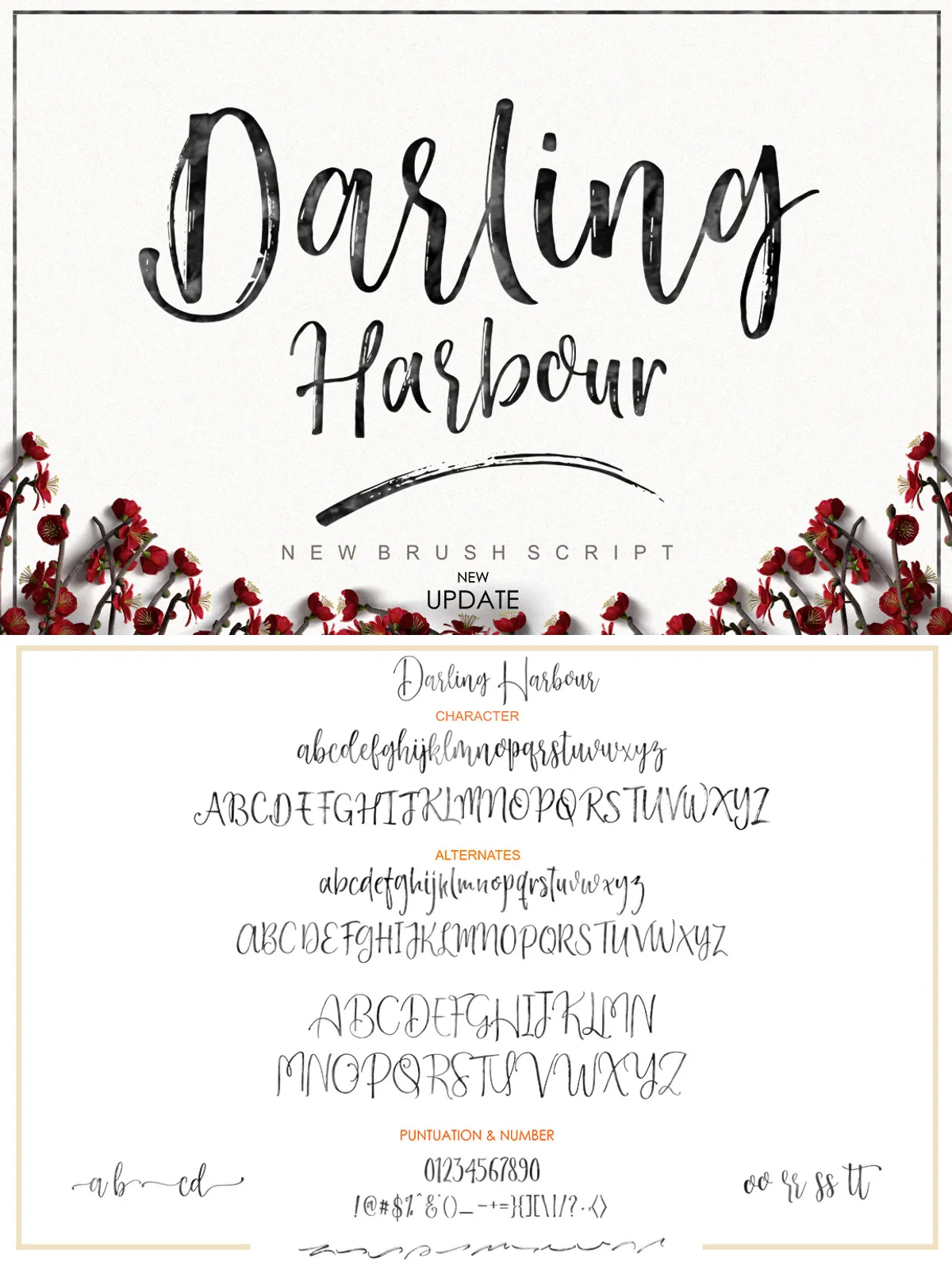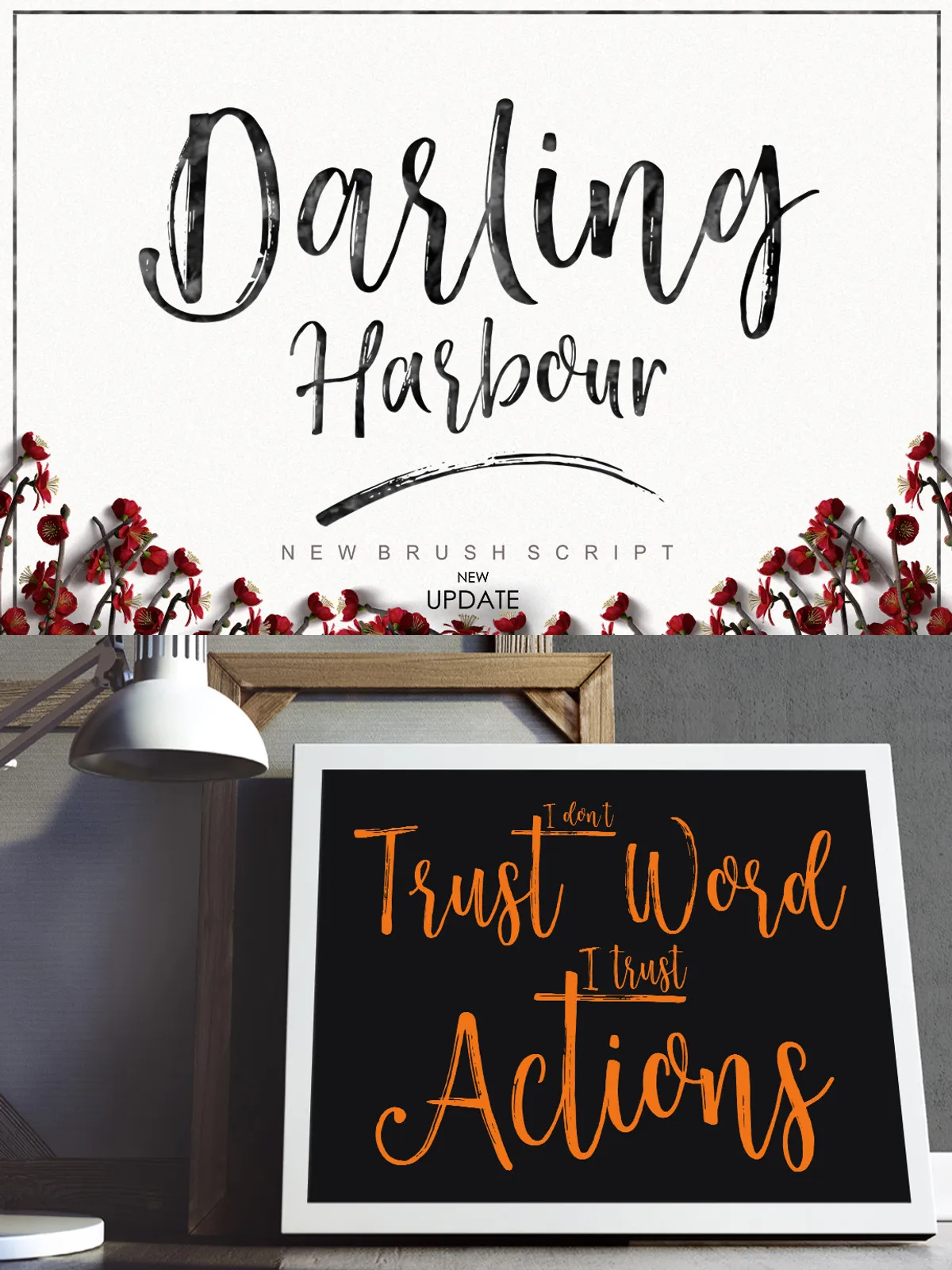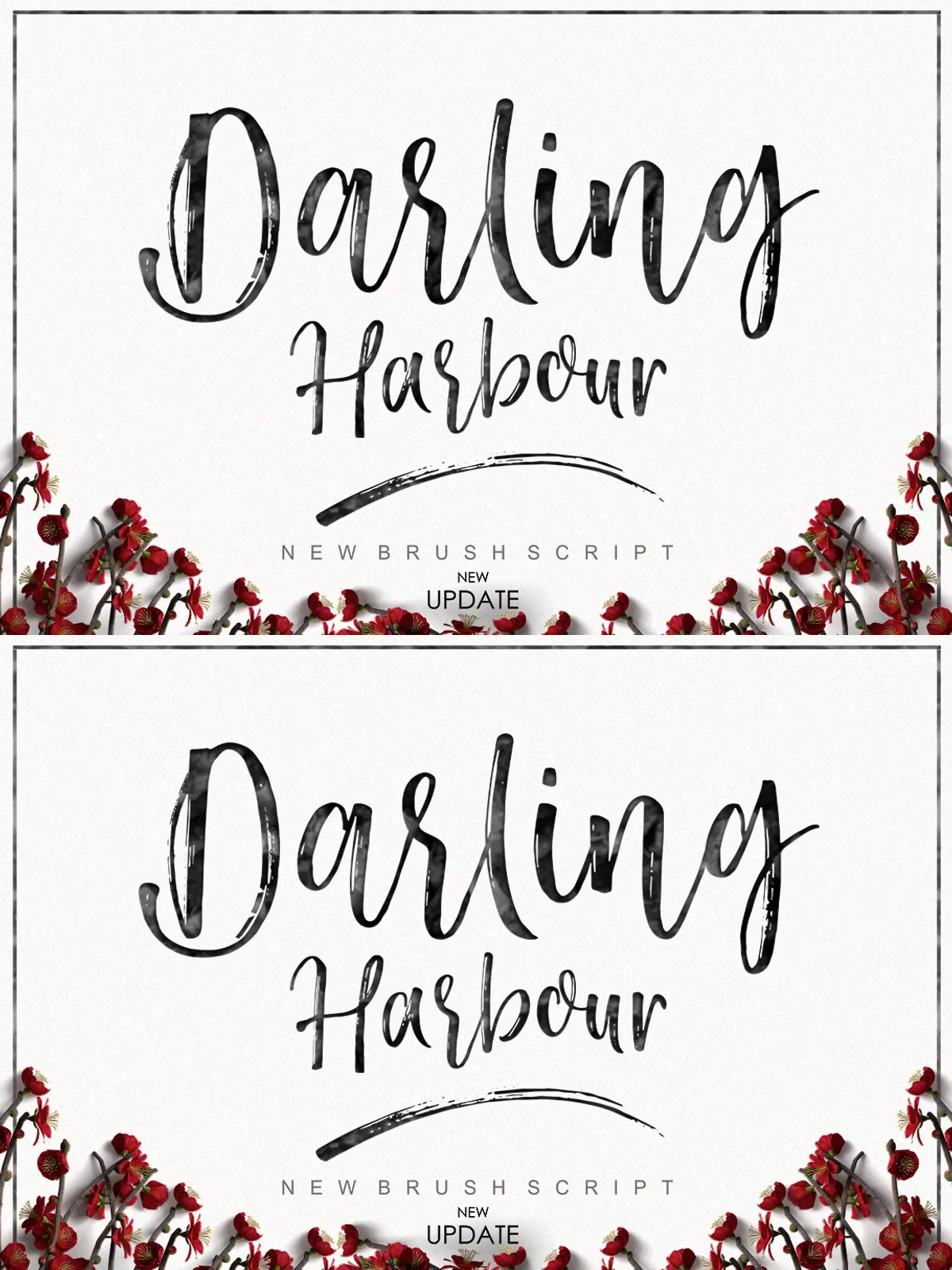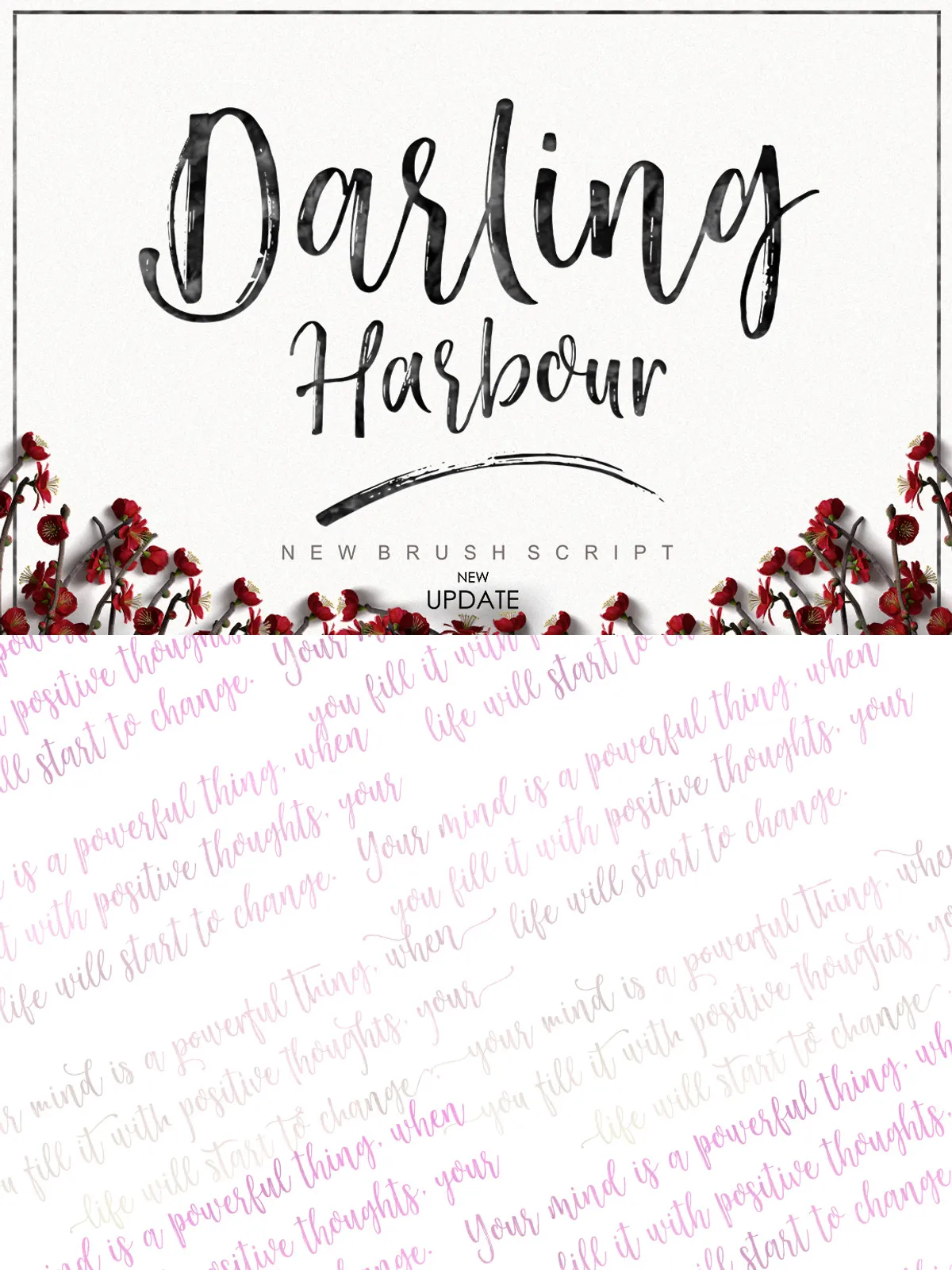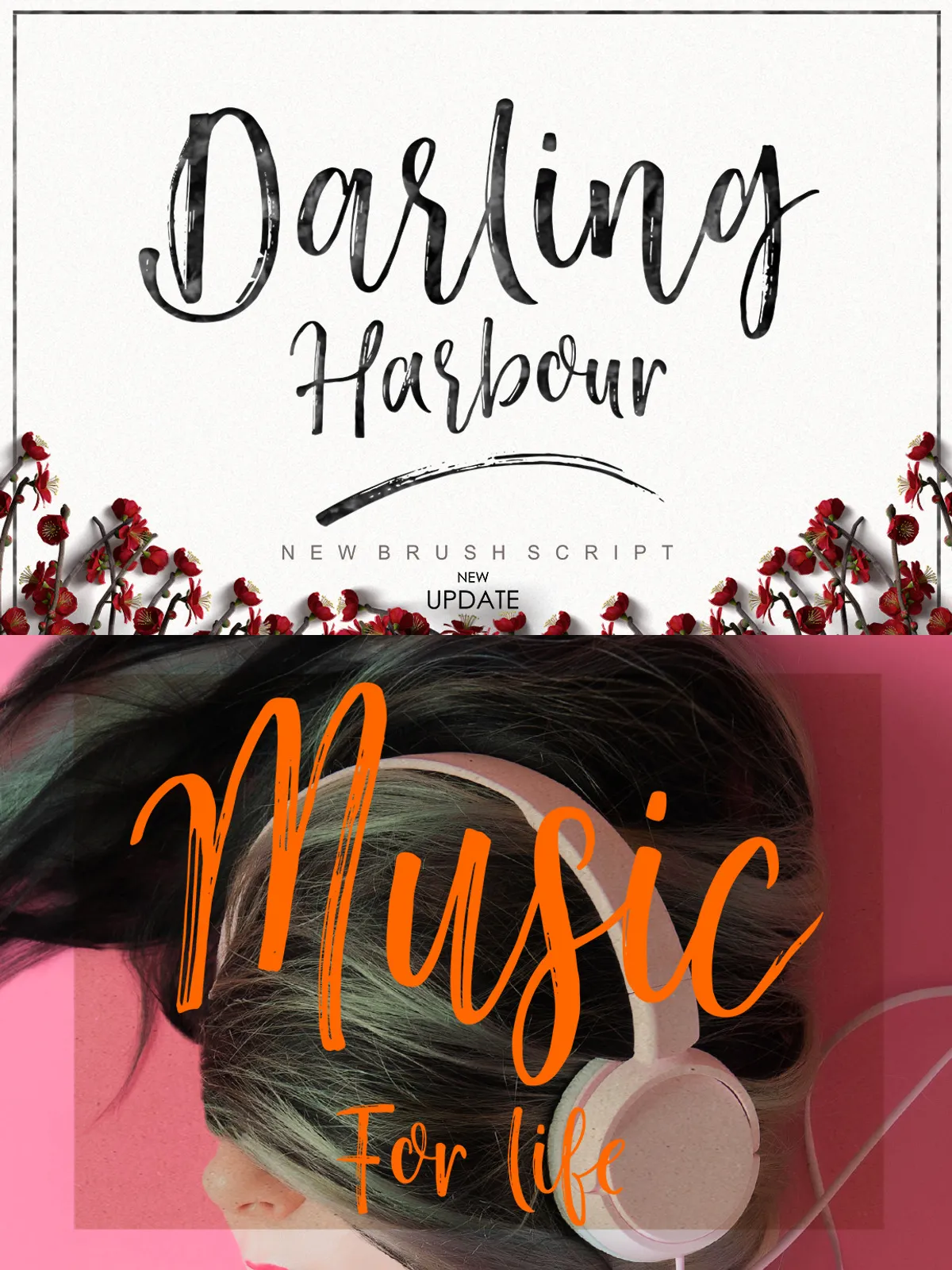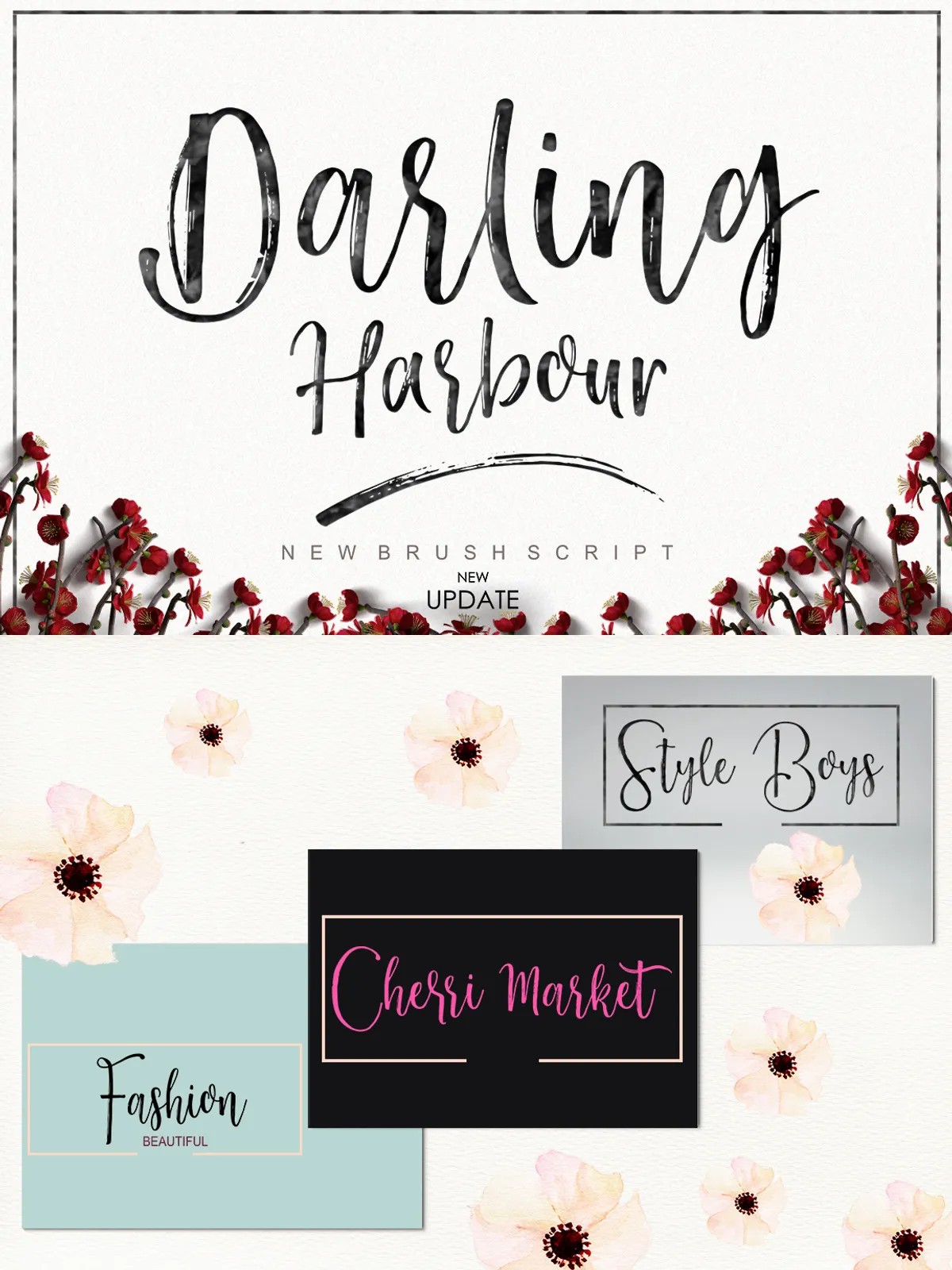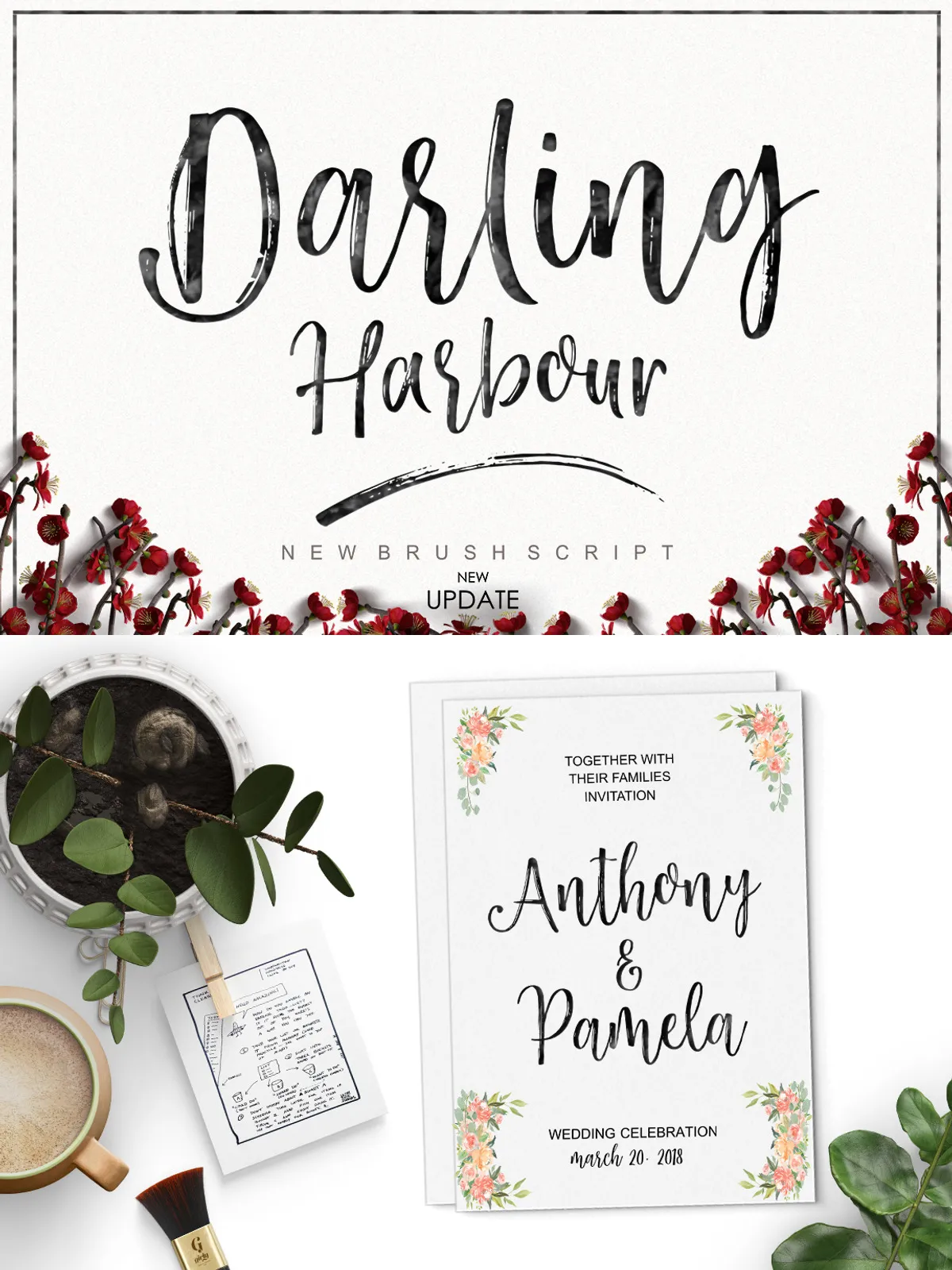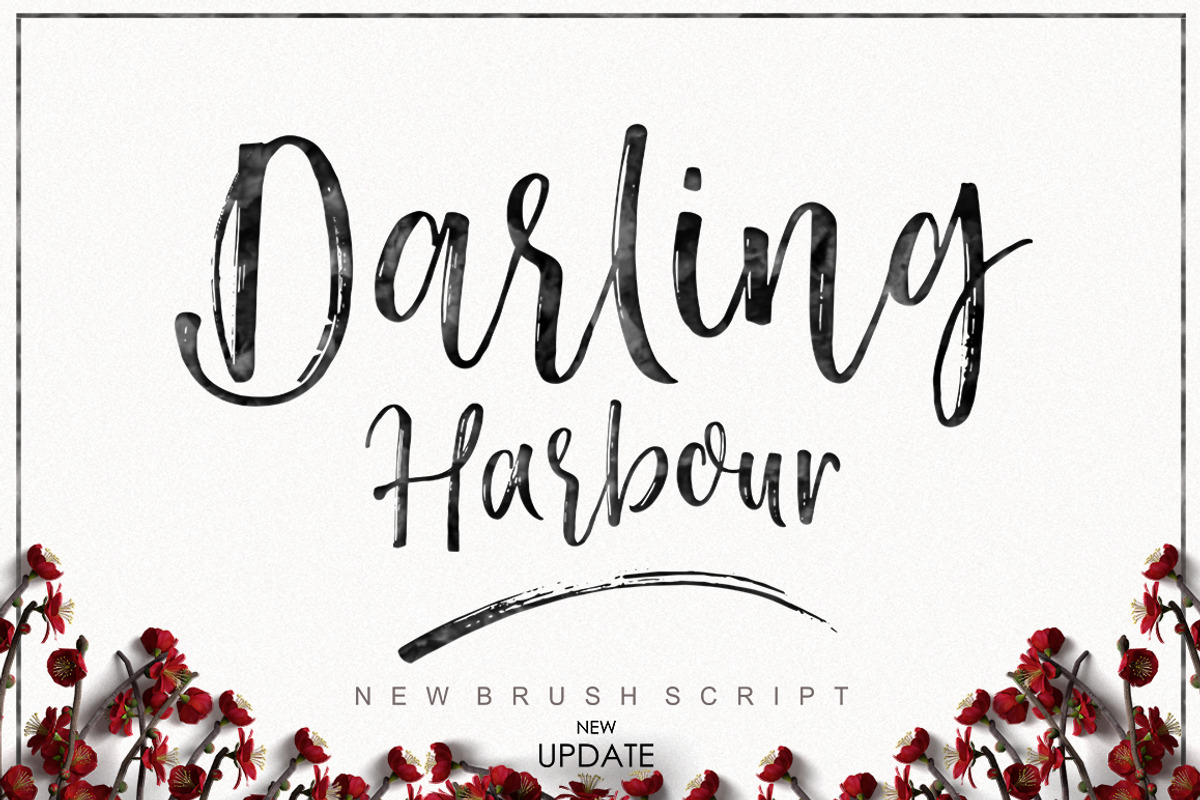
Step into the world of expressive typography with Darling Harbour Brush—a captivating brush script font that brings the fluidity of hand-drawn artistry to your digital designs. Perfect for projects that demand personality and charm, this font transforms ordinary text into a visual story. Whether you’re crafting a wedding invitation, designing a brand logo, or illustrating a personal blog title, Darling Harbour Brush delivers a sense of warmth, creativity, and authenticity that machines can’t replicate.
Each character dances with motion, mimicking the natural flow of a real brushstroke. The soft, dynamic lines and carefully curated **ligatures** create seamless word connections, giving your text a harmonious and professional feel. With **stylistic alternates**, **swashes**, and **terminal variations**, every letter can be customized to reflect your vision with precision and flair.
Complete the Look with Built-in Harmony
Darling Harbour Brush isn’t just a standalone font—it’s a complete design ecosystem. Included with your download is Darling Harbour Brush Slant, a perfectly matched slanted variant designed to blend seamlessly with the original. Use it together to create stunning typographic pairings: the upright version for elegance, the slant for modern dynamism.
For extra flair, you’ll also receive the Darling Harbour Brush Swashes package—custom brush extensions that add dramatic lifts and flourishes to letters. Combine these with the base font and OpenType features to achieve a truly bespoke typographic character that stands out in any project.
- OpenType Feature Support: Includes initial and terminal forms, ligatures, stylistic alternates, and swashes for full creative control.
Powerful Applications Across Design Domains
Darling Harbour Brush thrives in any project where emotional resonance and visual rhythm matter. It’s not just a font—it’s a design partner.
• Ideal For:
- Brand Identity & Logo Design: Craft a signature look that feels human, personal, and instantly memorable.
- Product Packaging & Labeling: Add a touch of handmade charm to food, cosmetics, and artisanal goods.
- Invitations & Greeting Cards: Impress guests with elegant, expressive save-the-dates, wedding invites, and holiday cards.
- Poster & Event Design: Create eye-catching flyers for concerts, art shows, or community events.
- Blog Headers & Web Typography: Use in websites or digital content to convey voice and authenticity.
- Personal Projects & Digital Art: Perfect for journal covers, social media graphics, or creative journaling.
Bring Your Vision to Life—Effortlessly
Darling Harbour Brush puts the power of expressive handwriting in your hands—without the hours of sketching. It’s the perfect bridge between digital precision and artistic soul.
Whether you’re a branding specialist, a print designer, or a creative hobbyist, this font gives you the tools to inject real personality into your work. It’s not about typing— it’s about telling a story through letters.